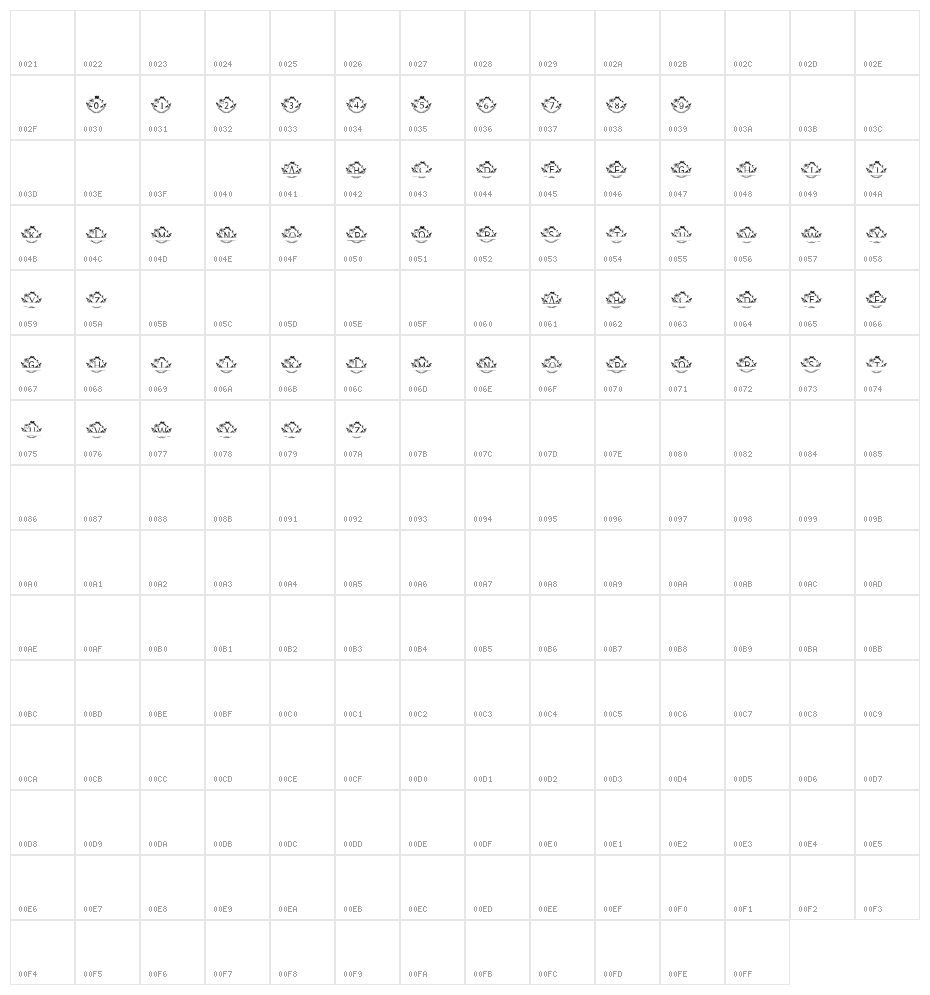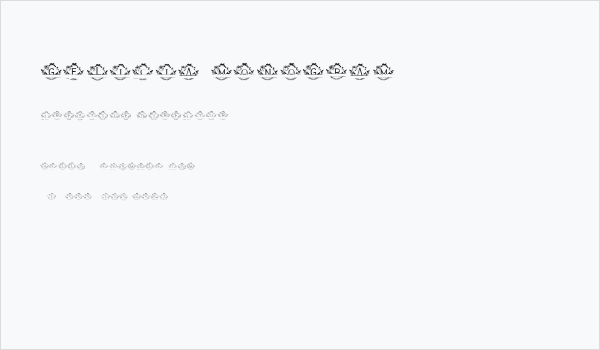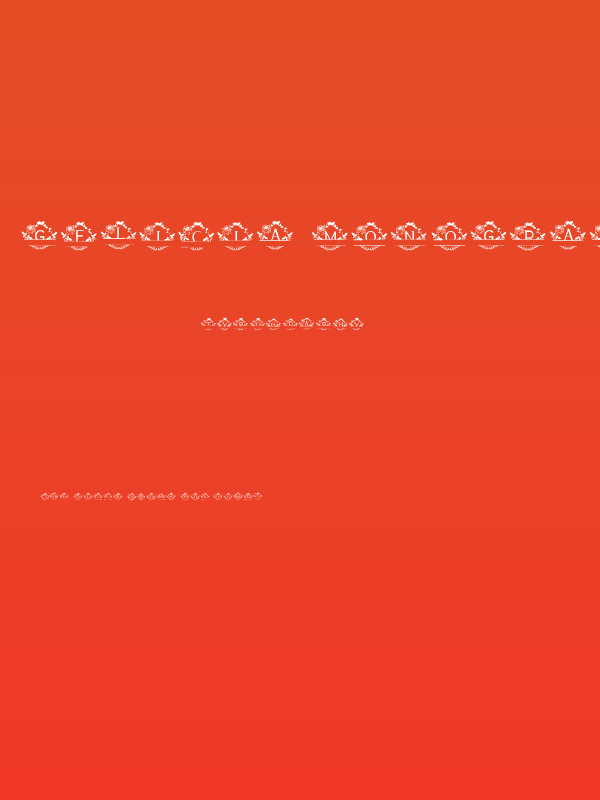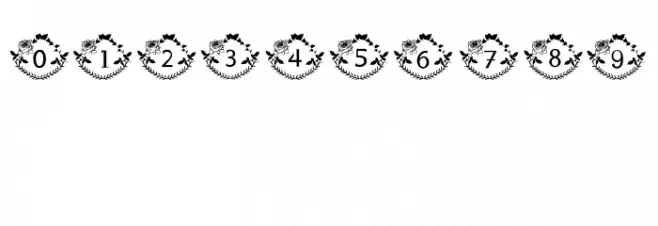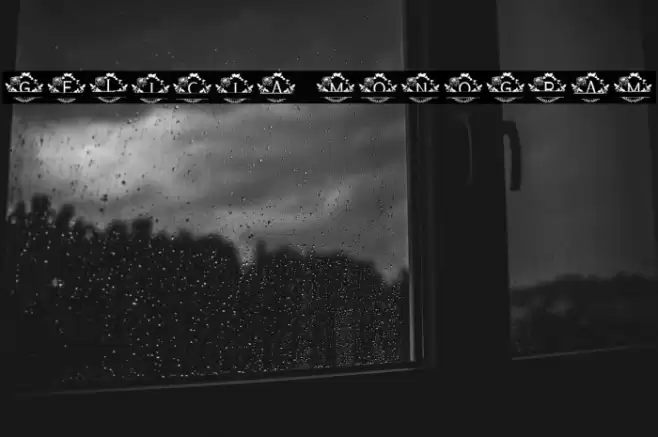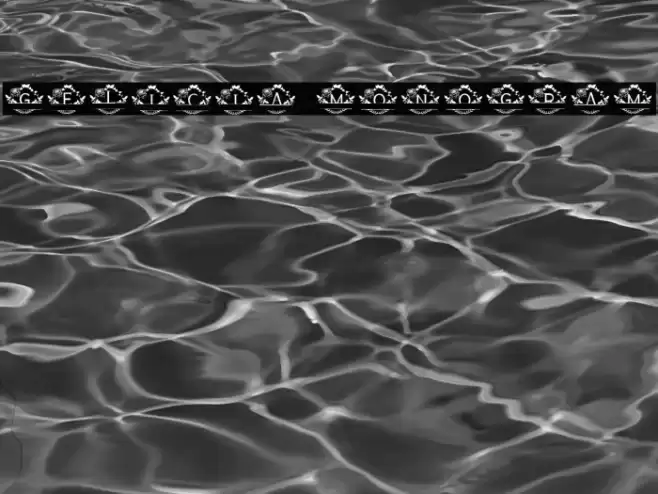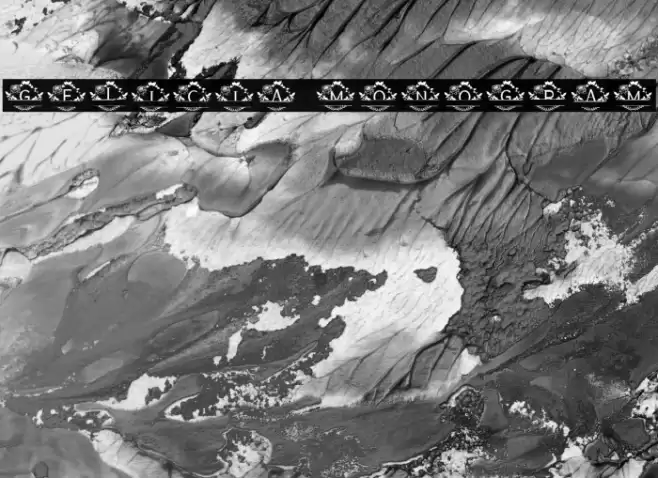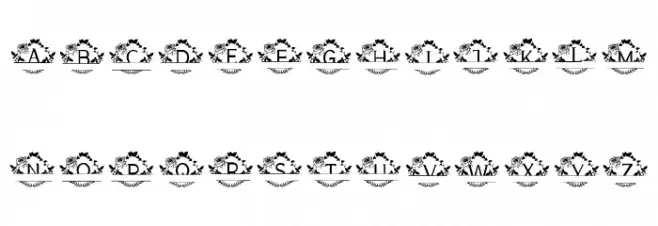
GELICIA MONOGRAM Font
GELICIA MONOGRAM Description
This font features an ornate and decorative style, with each character enclosed within an intricate floral wreath. The design incorporates elegant floral motifs, giving it a luxurious and sophisticated appearance. The characters are bold and prominent, making them stand out within the decorative frame. This style is reminiscent of classic monograms, often used for personalizing items with a touch of elegance. The font's unique design elements make it suitable for special occasions and formal settings, where a touch of refinement is desired.
| Overall Style | Decorative |
| Use Case | Logos, Invitations, Monograms |
| Proposed Projects | Perfect for wedding invitations, luxury branding, personalized gifts, and decorative monograms. |